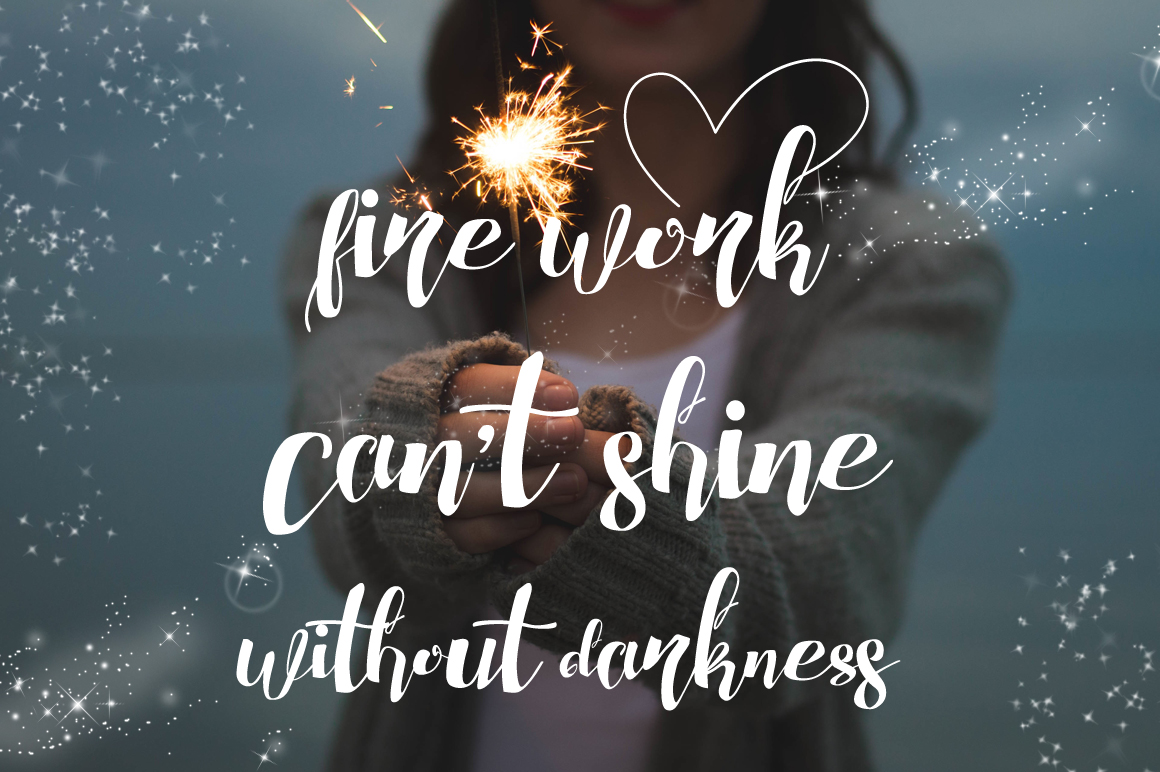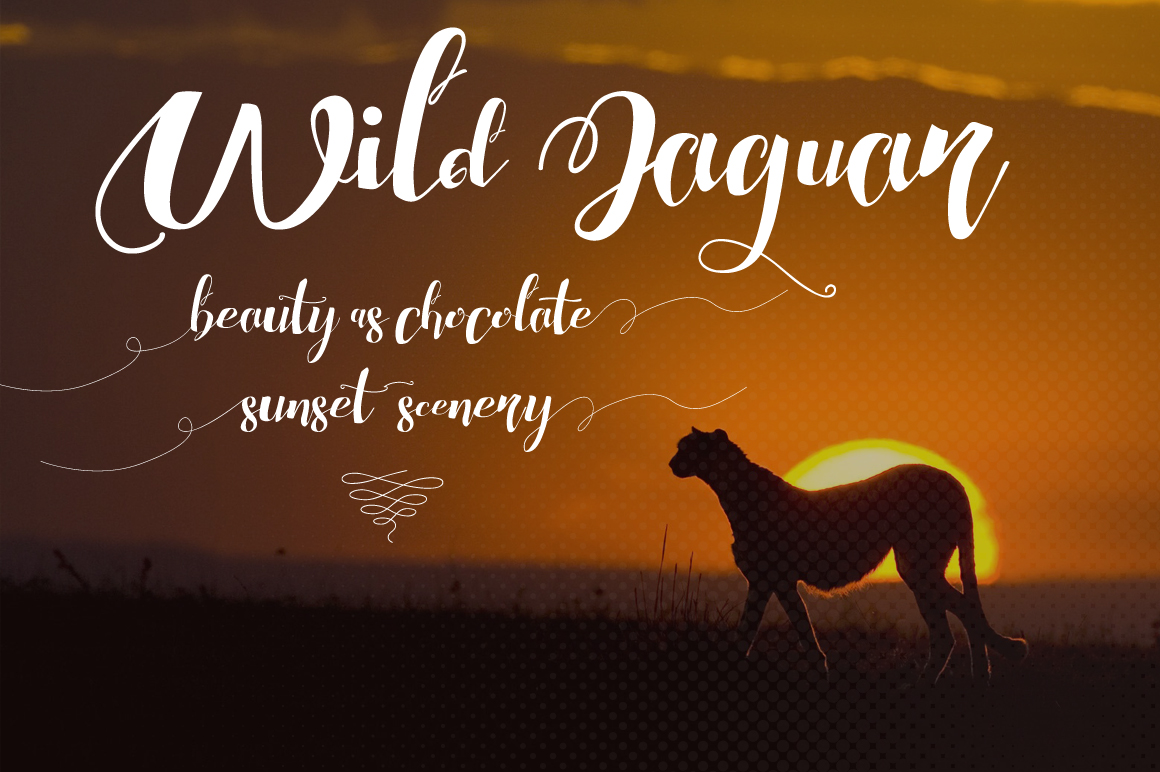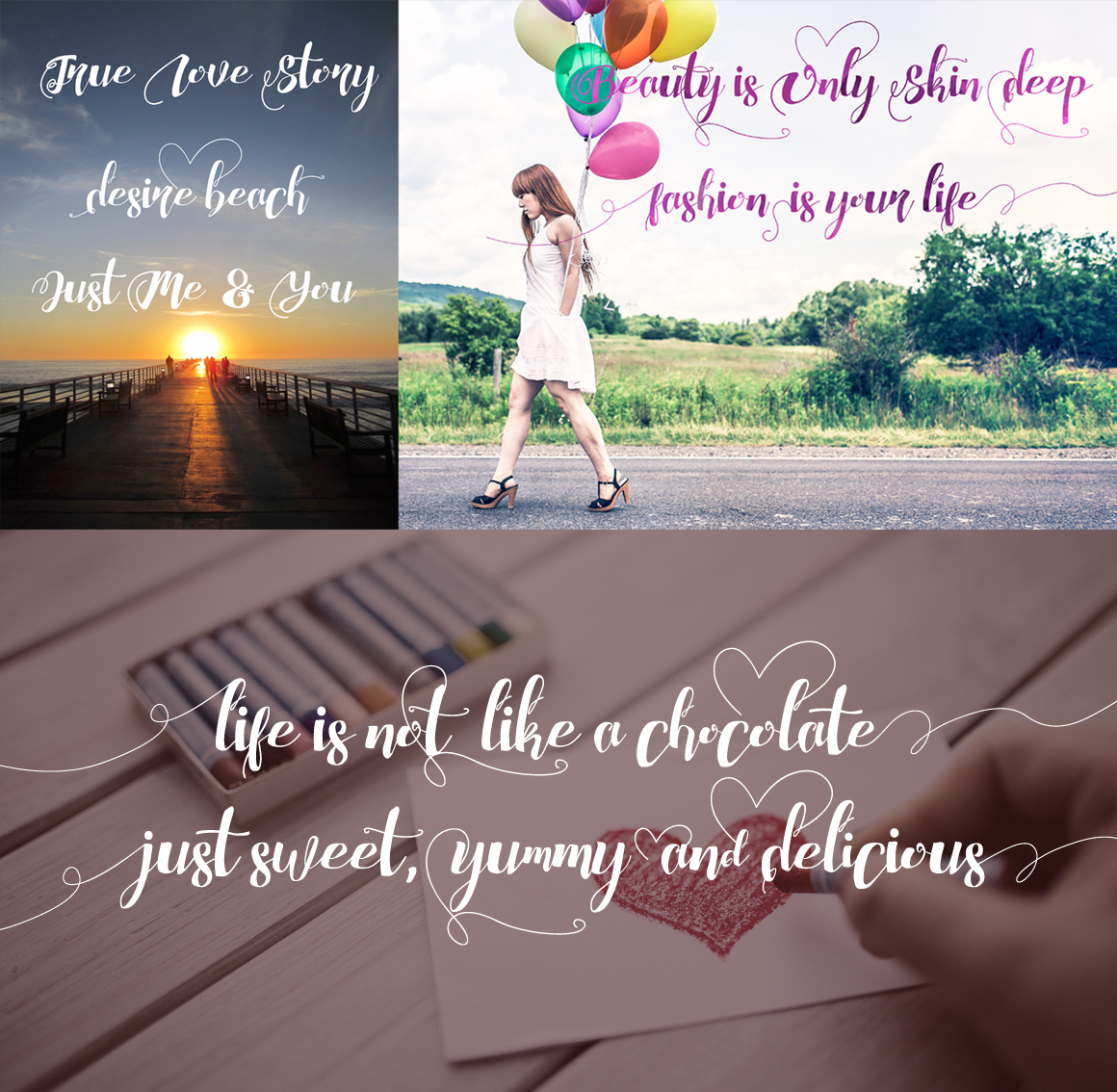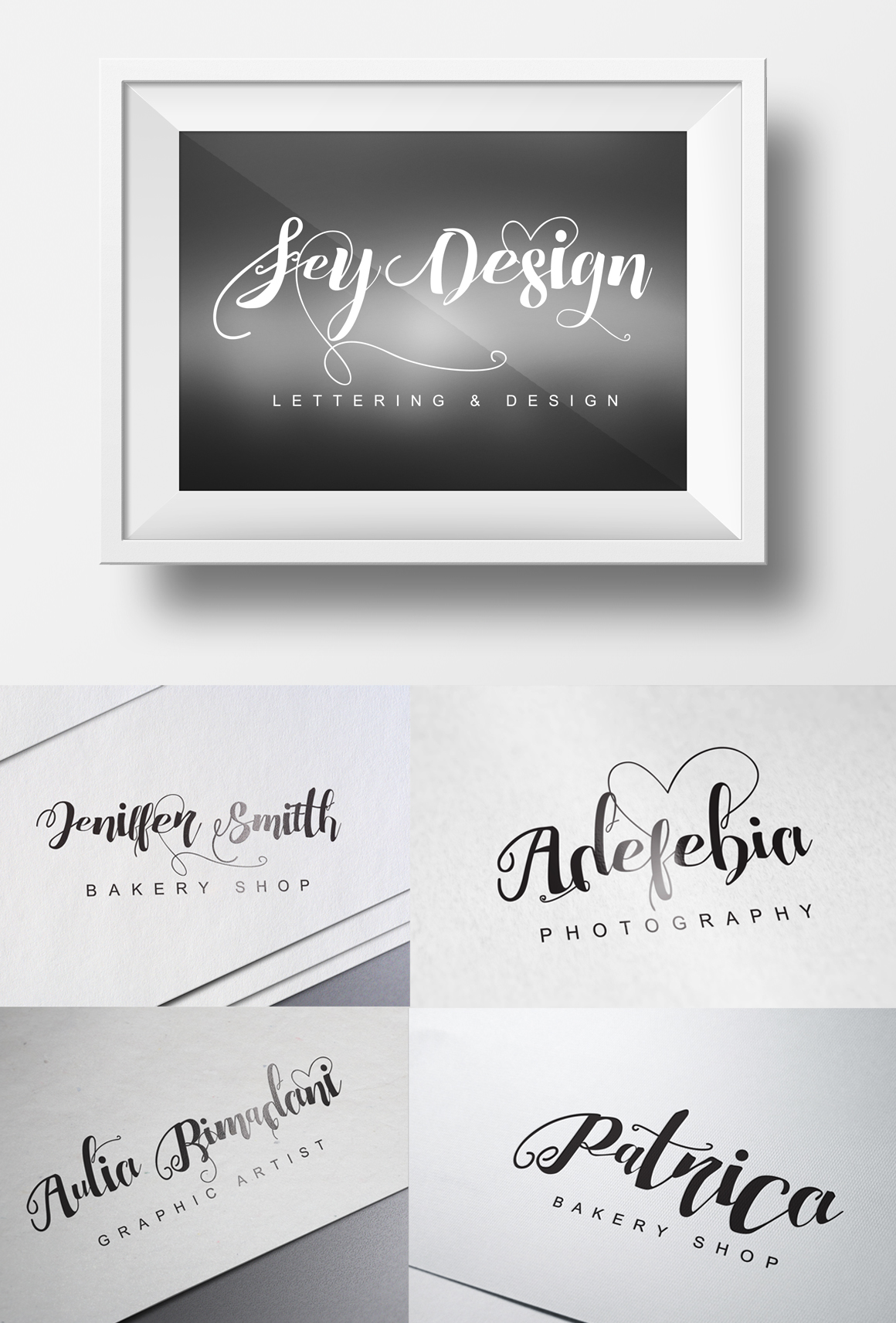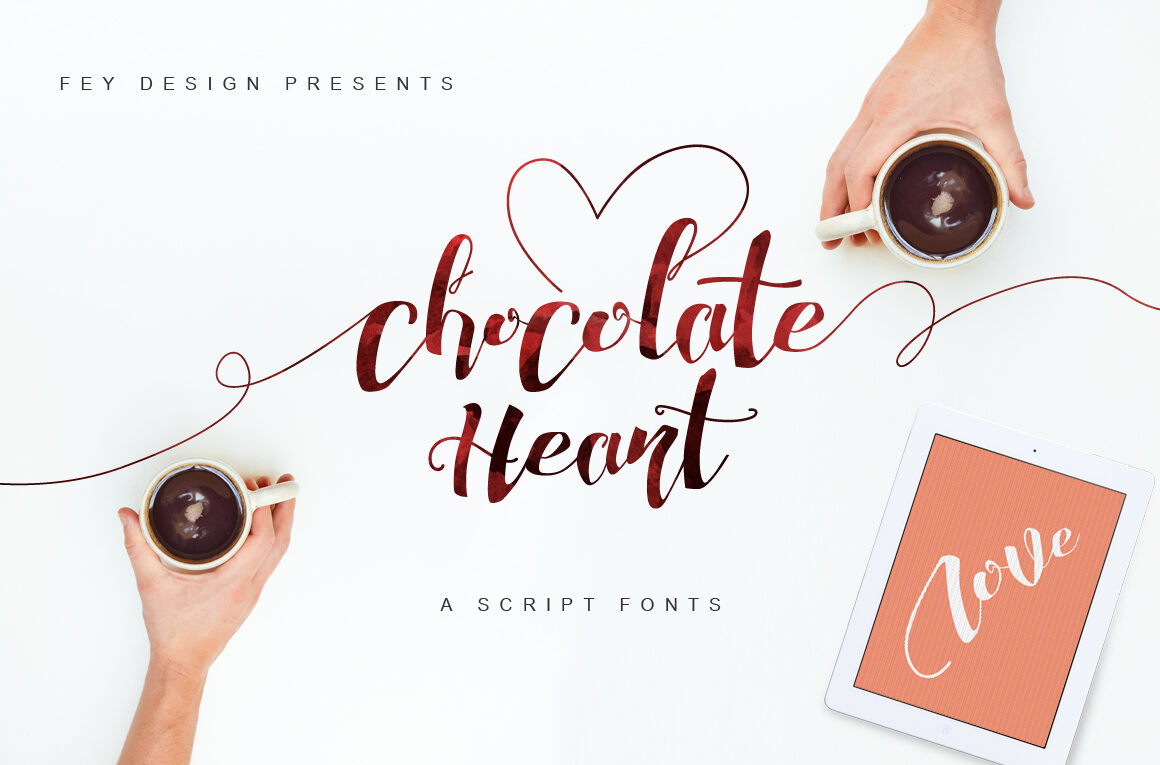
Introducing Chocolate Heart Font: The Sweetest Calligraphy Font for Romantic Designs
Are you a designer looking for a font that exudes love, warmth, and romance? Look no further than the Chocolate Heart Font! This stylish calligraphy font is perfect for designers who want to add a touch of sweetness to their romantic-oriented designs. In this article, we’ll dive into the world of Chocolate Heart Font, exploring its features, benefits, and uses.
What is Chocolate Heart Font?
Chocolate Heart Font is a beautiful calligraphy font that’s designed to capture the essence of romance. Its elegant and flowing lines make it perfect for creating stunning designs that convey love, passion, and warmth. Whether you’re designing wedding invitations, Valentine’s Day cards, or romantic posters, Chocolate Heart Font is the perfect choice.
Features of Chocolate Heart Font
So, what makes Chocolate Heart Font so special? Here are some of its key features:
- Stylish Calligraphy Design: Chocolate Heart Font boasts a beautiful calligraphy design that’s both elegant and sophisticated.
- Romantic Feel: The font’s flowing lines and curves give it a romantic feel that’s perfect for designs that require a touch of love and warmth.
- Versatile: Chocolate Heart Font can be used for a variety of design projects, from wedding invitations to social media graphics.
Benefits of Using Chocolate Heart Font
So, why should you choose Chocolate Heart Font for your designs? Here are some benefits of using this beautiful font:
- Adds a Touch of Romance: Chocolate Heart Font adds a touch of romance to any design, making it perfect for romantic-oriented projects.
- Stand Out from the Crowd: The font’s unique design helps your designs stand out from the crowd, making them more noticeable and memorable.
- Easy to Pair with Other Fonts: Chocolate Heart Font is easy to pair with other fonts, making it perfect for designs that require a combination of fonts.
- High-Quality Design: The font is designed with high-quality craftsmanship, ensuring that your designs look professional and polished.
Uses of Chocolate Heart Font
So, what can you use Chocolate Heart Font for? Here are some ideas:
- Wedding Invitations: Use Chocolate Heart Font to create stunning wedding invitations that set the tone for the big day.
- Valentine’s Day Cards: Create romantic Valentine’s Day cards that express your love and affection.
- Romantic Posters: Design romantic posters that capture the essence of love and passion.
- Social Media Graphics: Use Chocolate Heart Font to create social media graphics that add a touch of romance to your online presence.
Tips for Using Chocolate Heart Font
Here are some tips for using Chocolate Heart Font:
- Use it Sparingly: Use Chocolate Heart Font sparingly to avoid overwhelming your design.
- Pair it with Other Fonts: Pair Chocolate Heart Font with other fonts to create a unique and interesting design.
- Pay Attention to Kerning: Pay attention to kerning to ensure that your text looks professional and polished.
In conclusion, Chocolate Heart Font is a beautiful calligraphy font that’s perfect for designers who want to add a touch of romance to their designs. With its elegant and flowing lines, this font is sure to capture the essence of love and warmth. Whether you’re designing wedding invitations, Valentine’s Day cards, or romantic posters, Chocolate Heart Font is the perfect choice. So why wait? Download Chocolate Heart Font today and start creating stunning designs that exude love and romance!